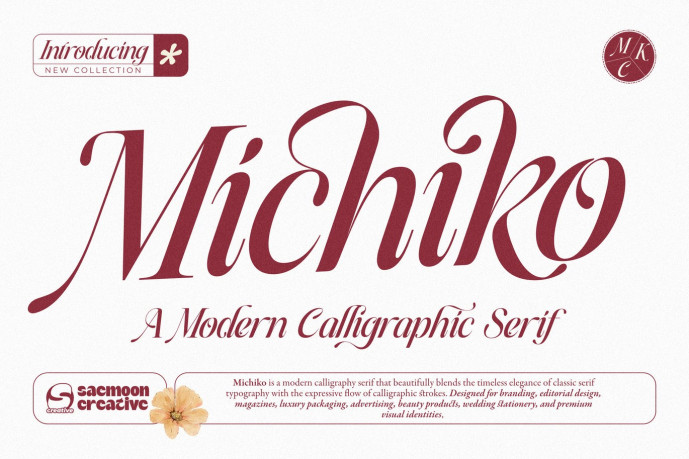
Michiko Font
Designer: Sapto Susilo
Michiko is a refined modern calligraphy serif font that combines the timeless elegance of classic serif typography with the graceful flow of contemporary calligraphy. Featuring high-contrast strokes, sophisticated curves, and beautifully crafted letterforms, Michiko creates a luxurious and feminine aesthetic that instantly elevates any design.
Designed for creatives who seek elegance and personality, Michiko is perfect for premium branding, fashion editorials, beauty packaging, wedding designs, social media content, and high-end marketing materials. Its stylish appearance delivers a balance between classic sophistication and modern luxury, making it suitable for both display headlines and elegant typography compositions.
Whether you’re designing a logo, creating product packaging, or building a luxury brand identity, Michiko offers a distinctive visual character that leaves a lasting impression.
Perfect For
Luxury Branding
Beauty Products
Wedding Invitations
Editorial & Magazine Layouts
Logos & Monograms
Social Media Templates
Cosmetic Packaging
Perfume Labels
Boutique Branding
Greeting Cards
Product Packaging
Premium Marketing Materials
Features
Uppercase & Lowercase
Beautiful Ligatures
Stylistic Alternates